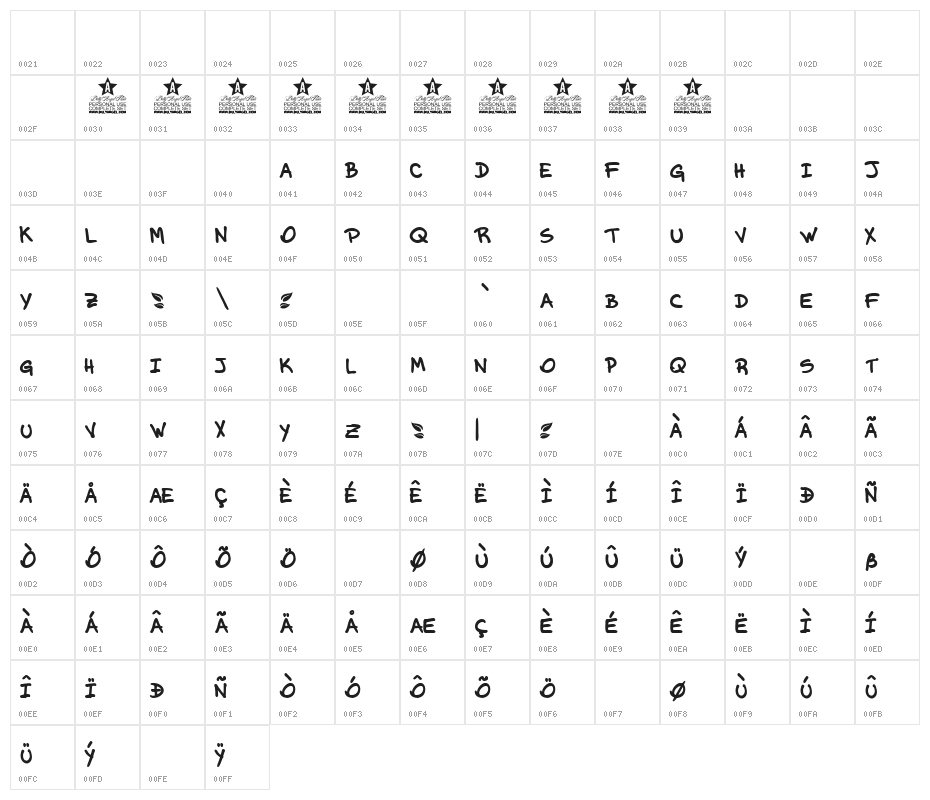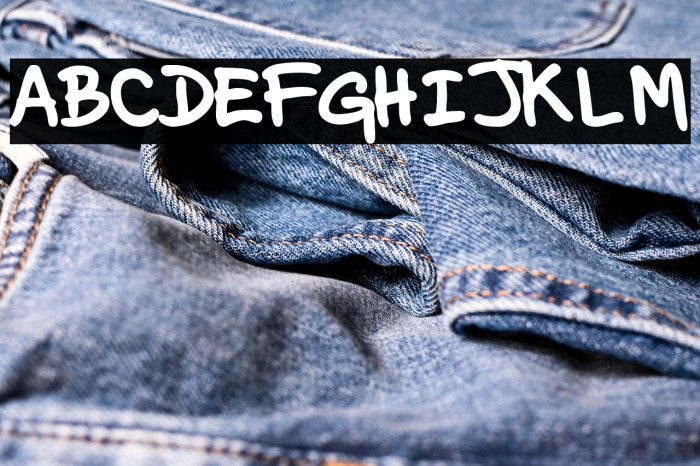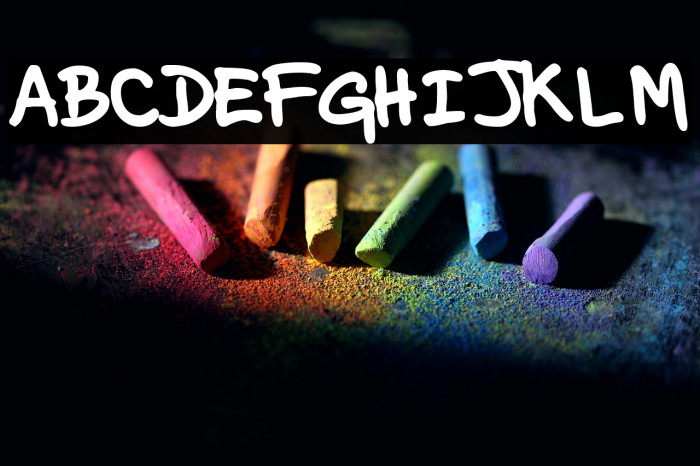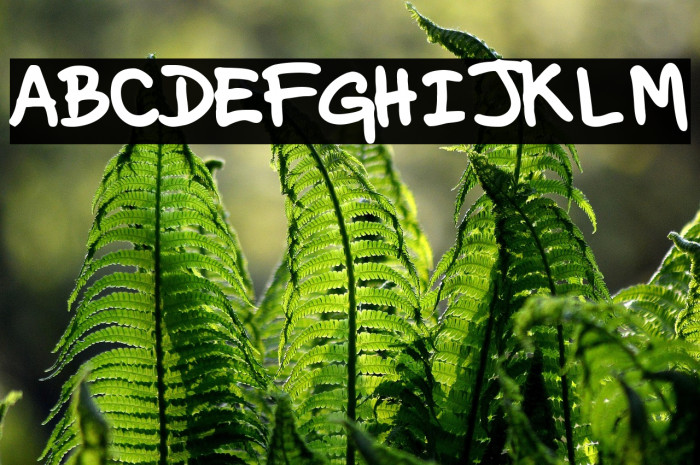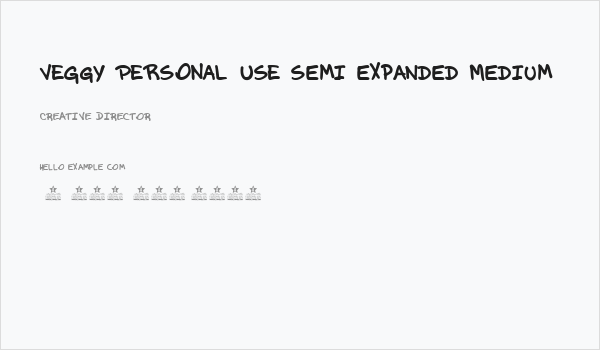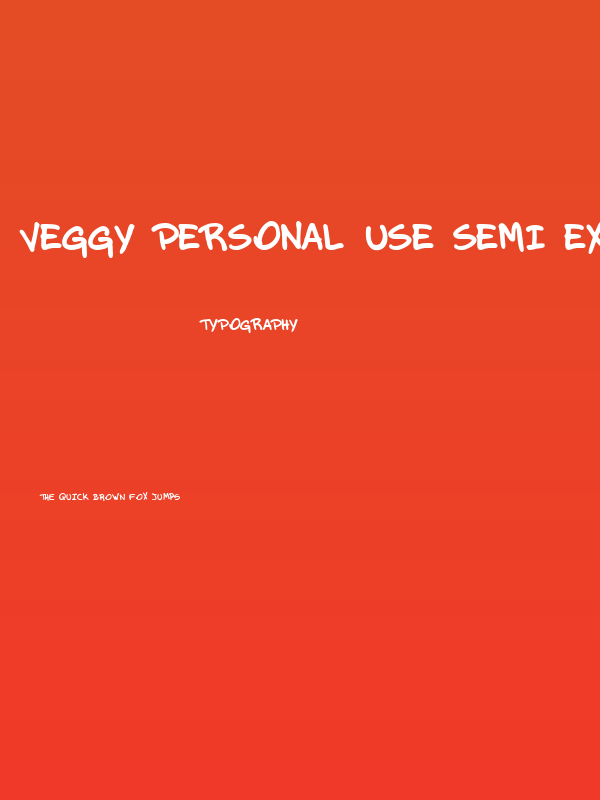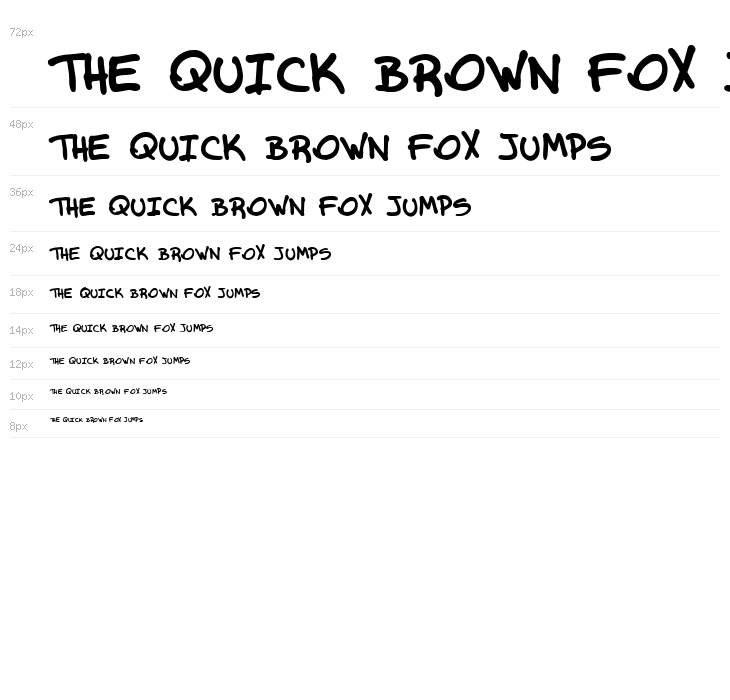
VEGgY PERSONAL USE Semi-expanded Medium Font
VEGgY PERSONAL USE Semi-expanded Medium Description
This font features a playful and casual handwritten style, characterized by its bold and slightly irregular strokes. The letters have a semi-expanded width, giving them a relaxed and approachable appearance. The uppercase and lowercase letters maintain a consistent style, with rounded edges and a slight slant that adds to the informal feel. The numbers and special characters follow the same design principles, ensuring a cohesive look across all elements. This font is ideal for projects that require a personal touch or a friendly, informal vibe.
| Use Case | Logos, Headlines, Informal text |
| Proposed Projects | Ideal for greeting cards, children's books, casual branding, and social media graphics. |